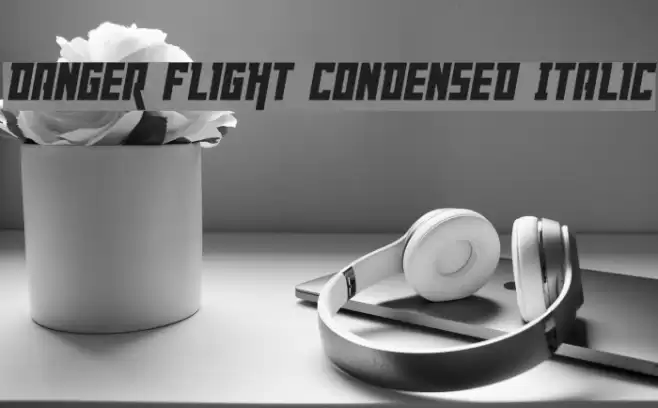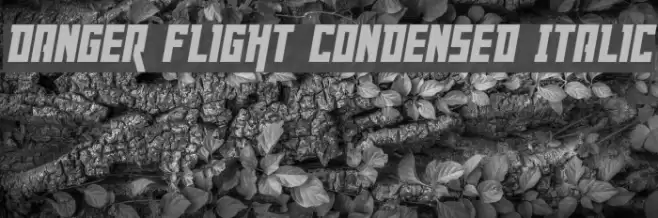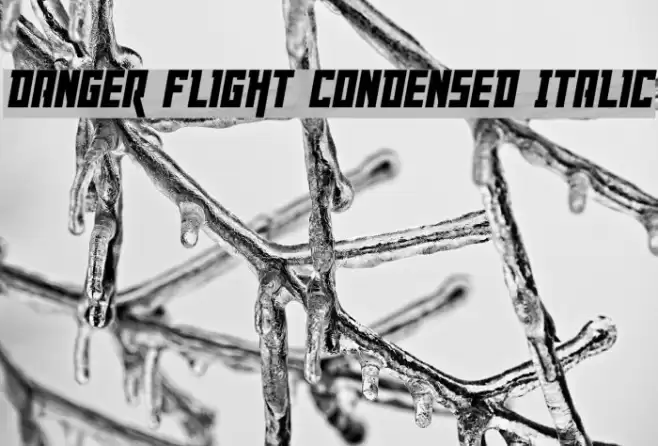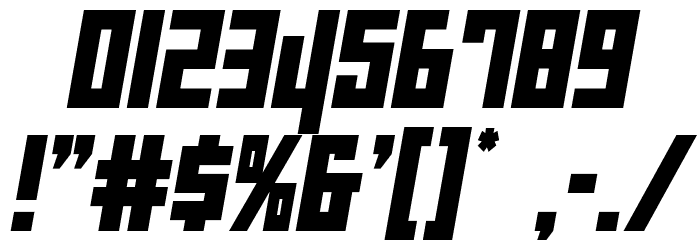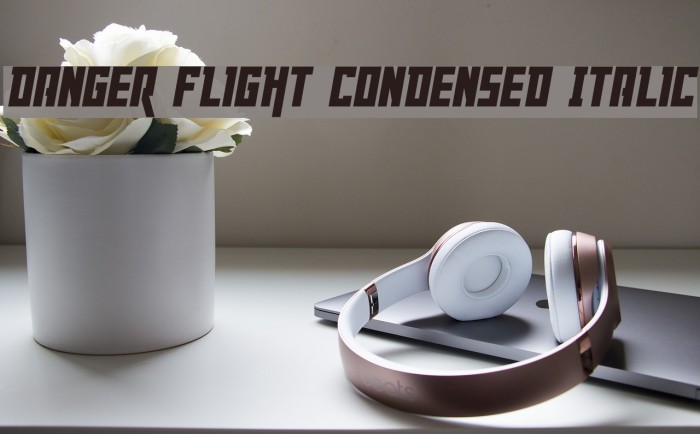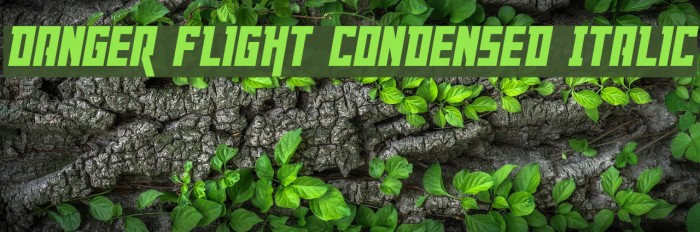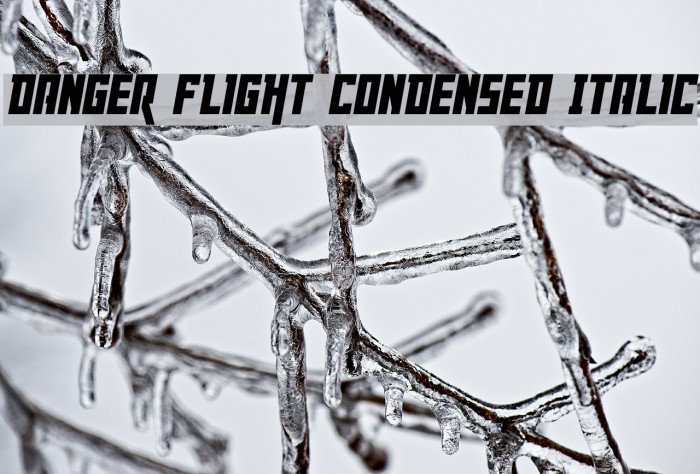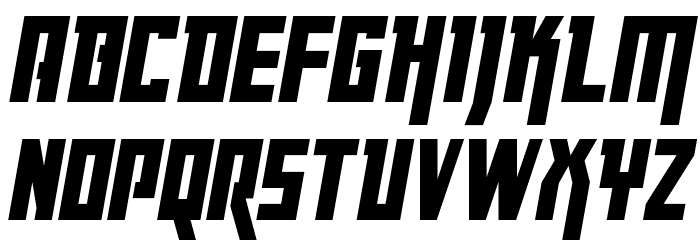
Danger Flight Condensed Italic Font
Danger Flight Condensed Italic Description
This font exhibits a bold and dynamic style with a distinctly angular and geometric design. The characters are sharply cut, with a forward-leaning italic slant that conveys a sense of speed and urgency. The condensed nature of the font allows for efficient use of space, making it ideal for impactful headlines. The uppercase and lowercase letters maintain a consistent height, enhancing readability while preserving the font's unique aesthetic. The numbers and special characters are designed to match the boldness and angularity of the alphabet, ensuring a cohesive look across all text elements. This font's strong presence and modern appeal make it suitable for projects that require a striking and memorable visual impact.
A bold, angular, and condensed italic font with a modern, dynamic style from Uncategorized fonts.
- Proposed Projects: Ideal for use in branding, advertising, sports team logos, and dynamic poster designs.
- Character Spacing: Tight